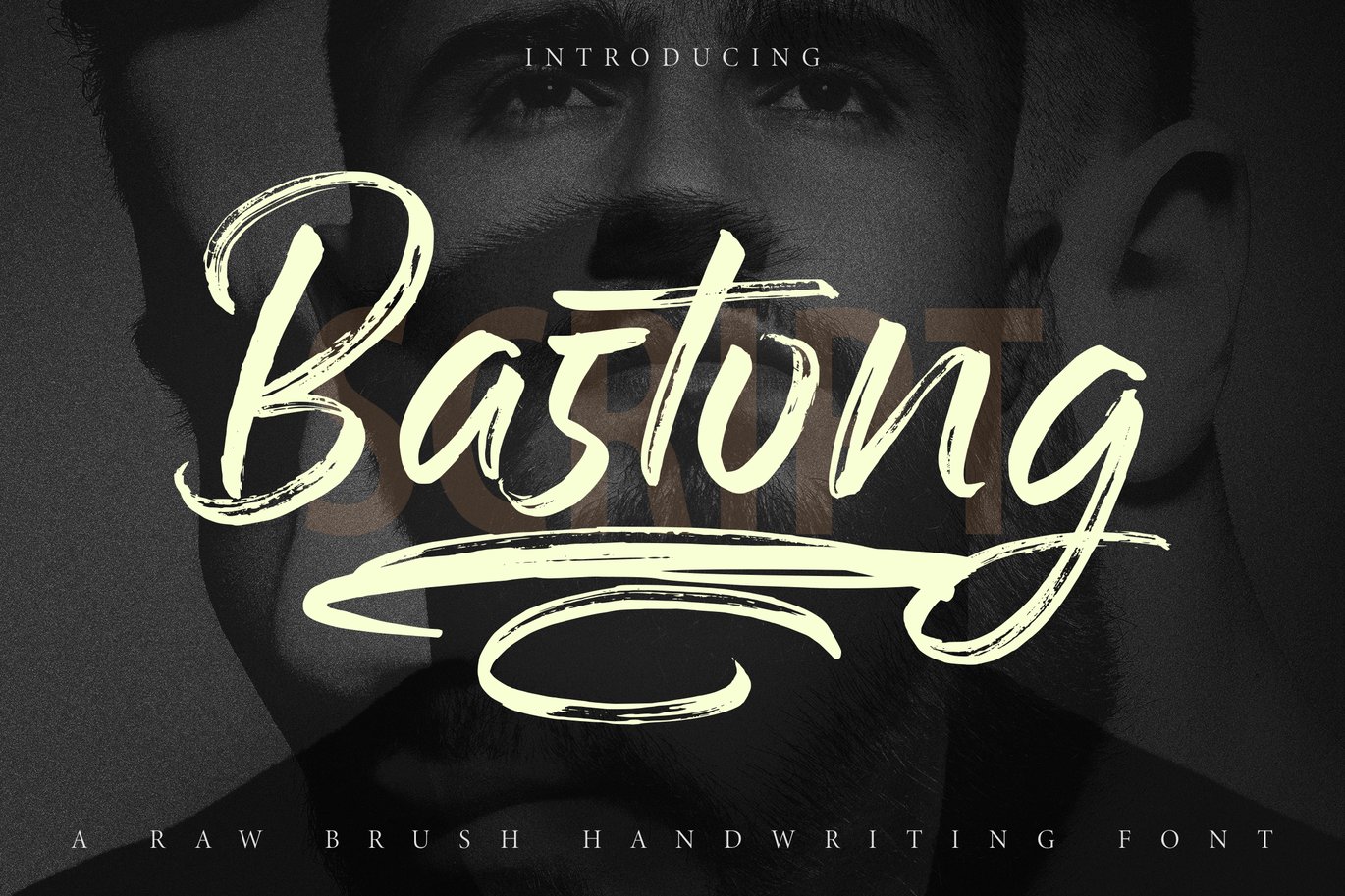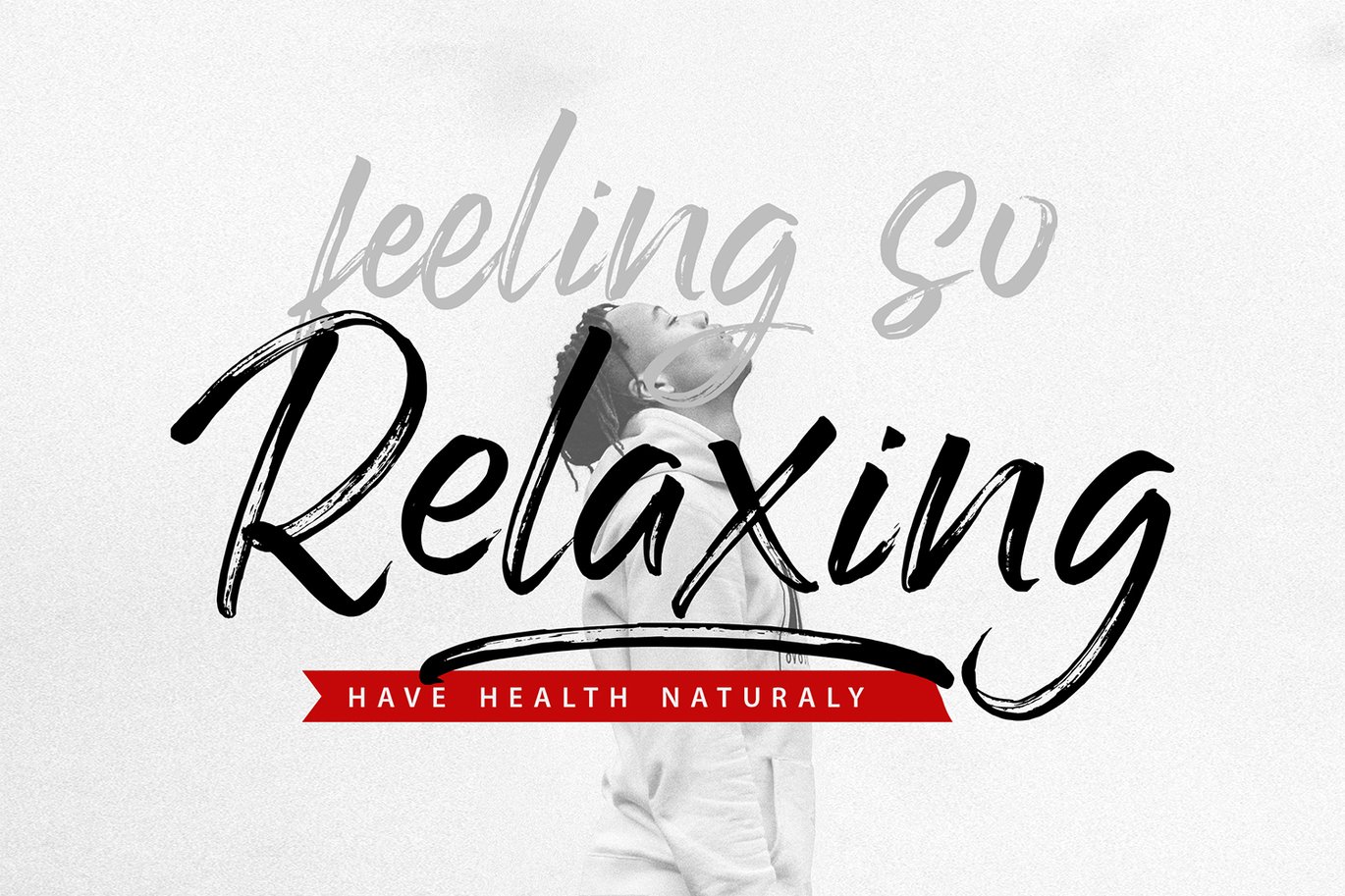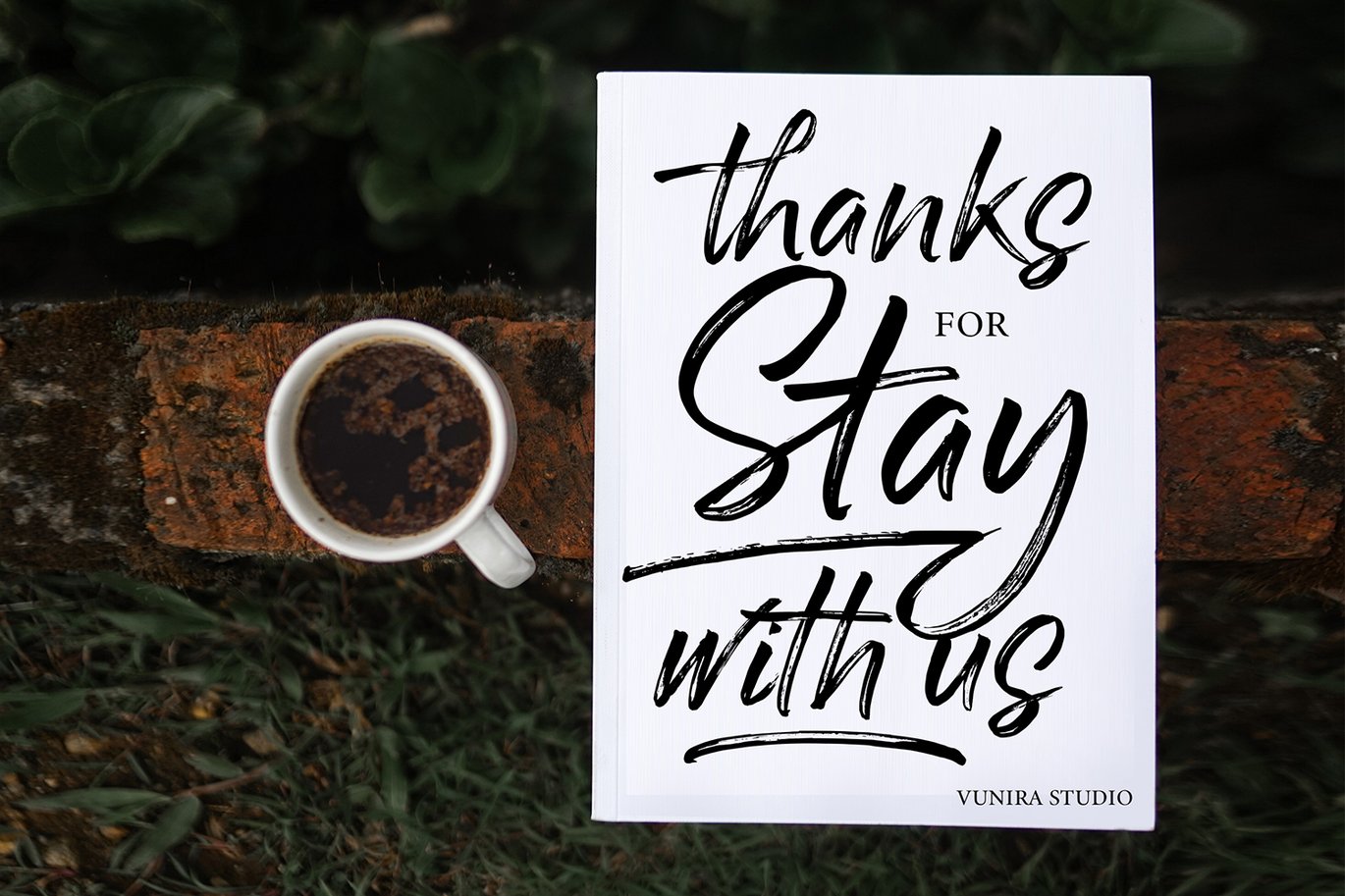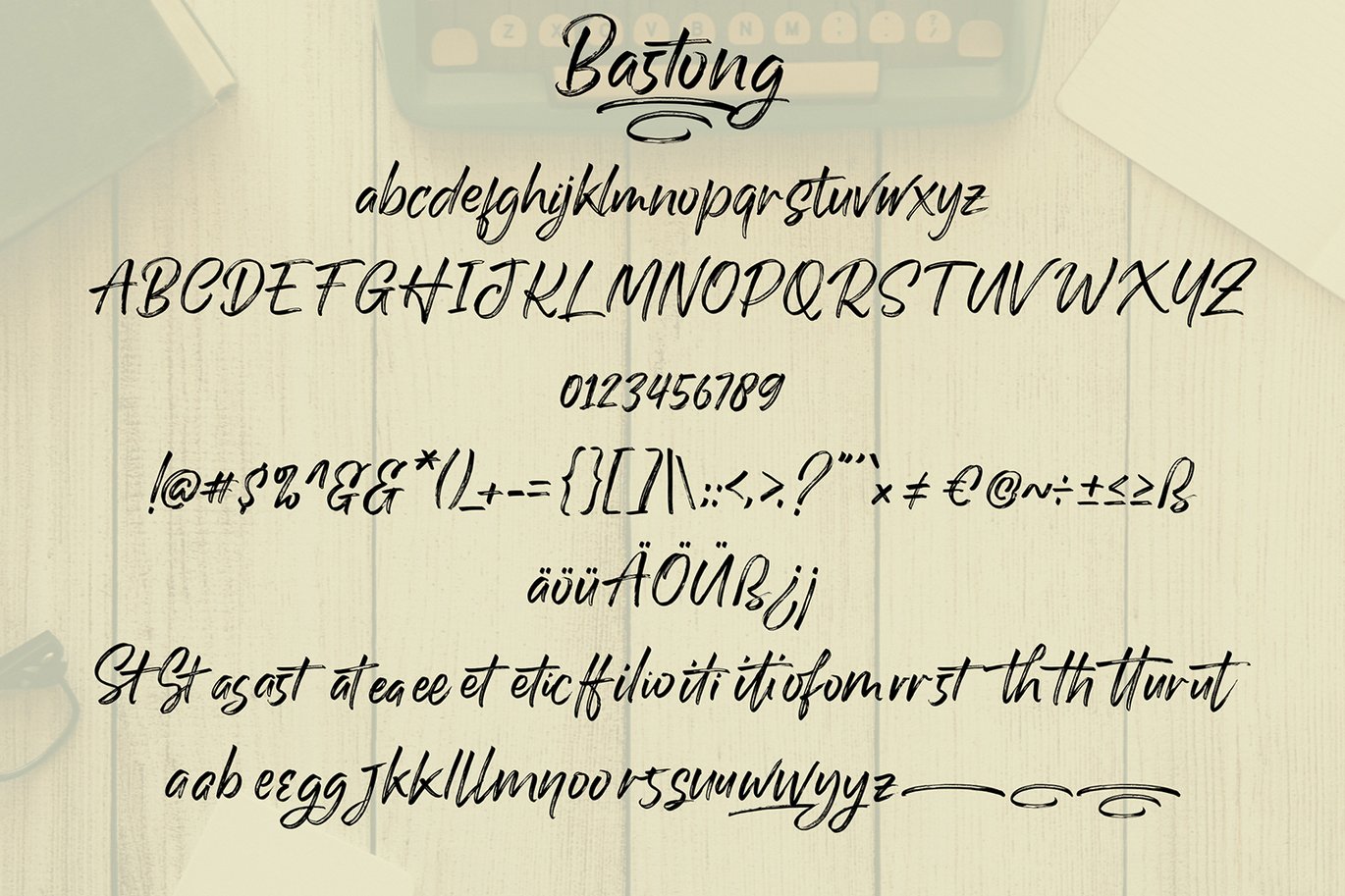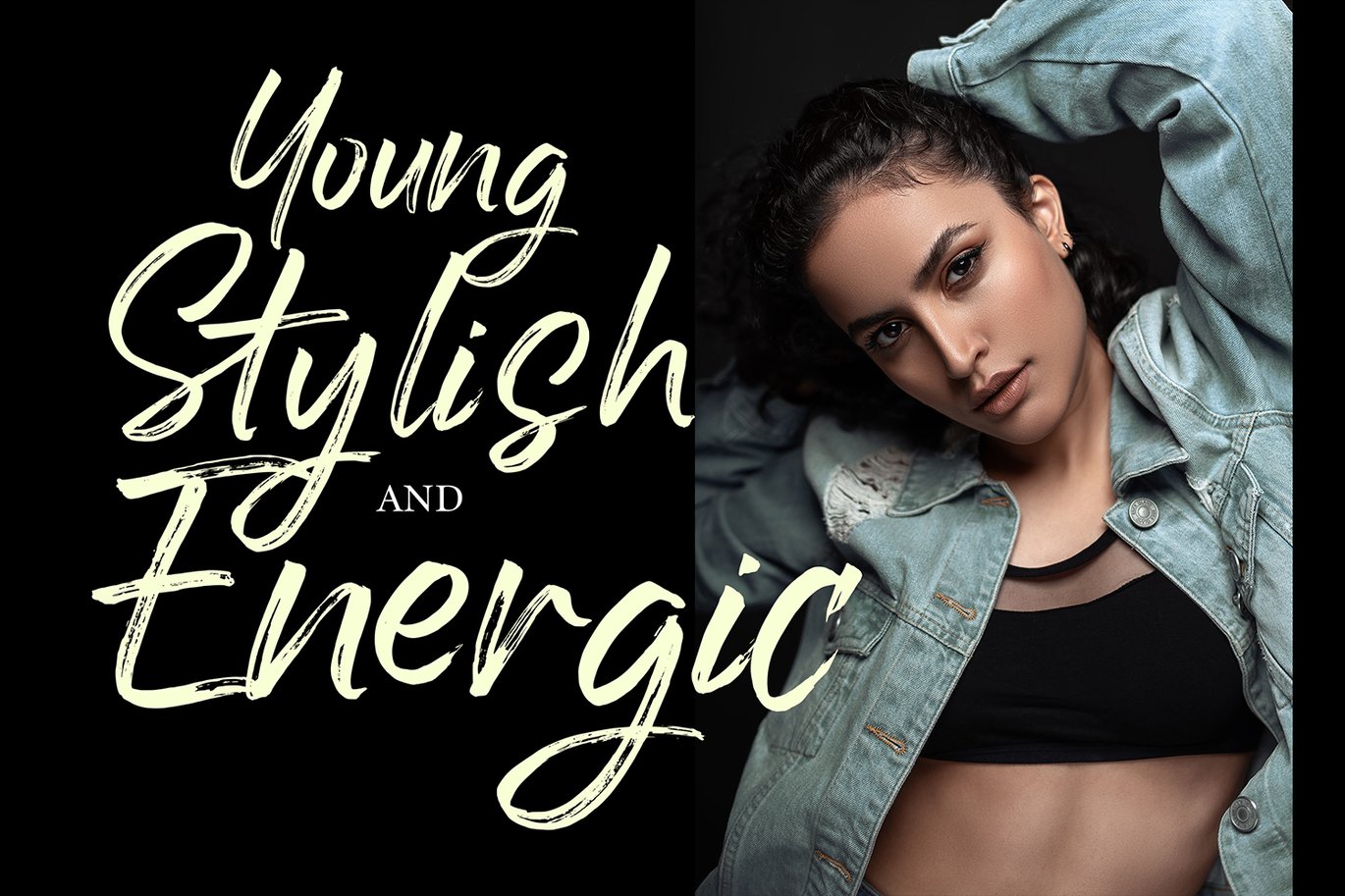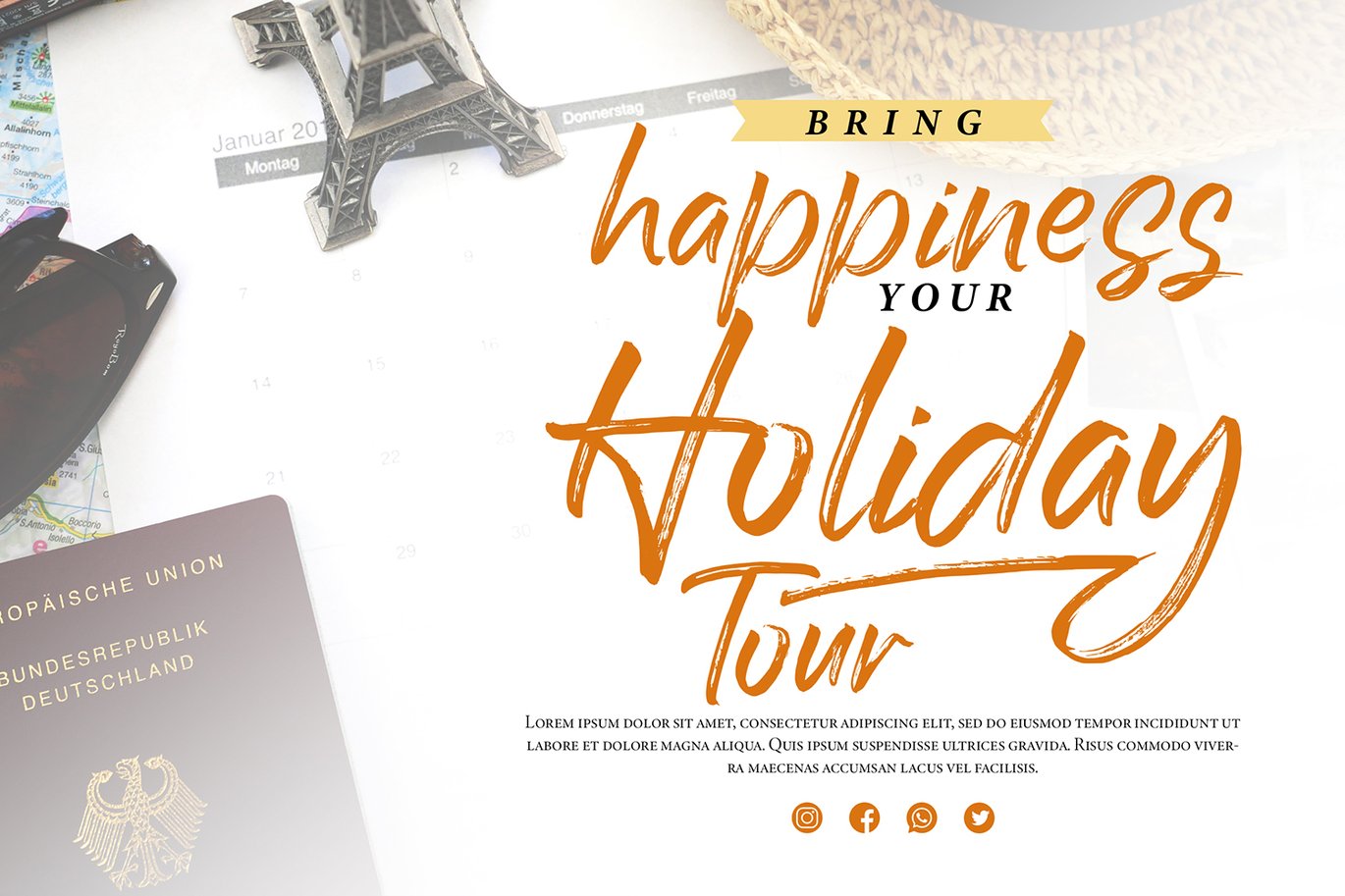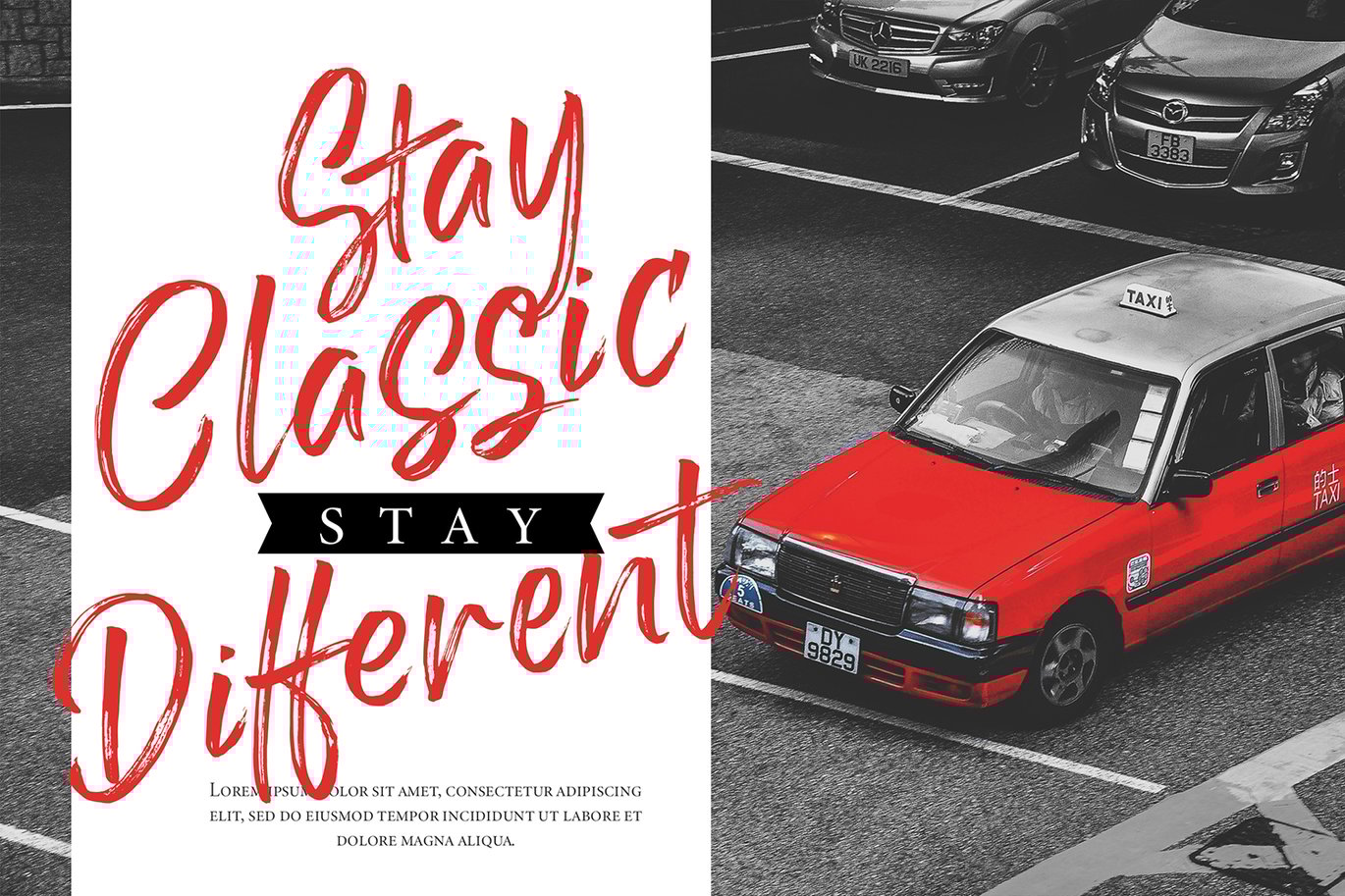
Bastong | A Raw Brush Handwriting Script Font
Bastong | A Raw Brush Handwriting Script Font with a calligraphy style, So beautiful on invitation like greeting cards, branding materials, business cards, quotes, posters, and more!